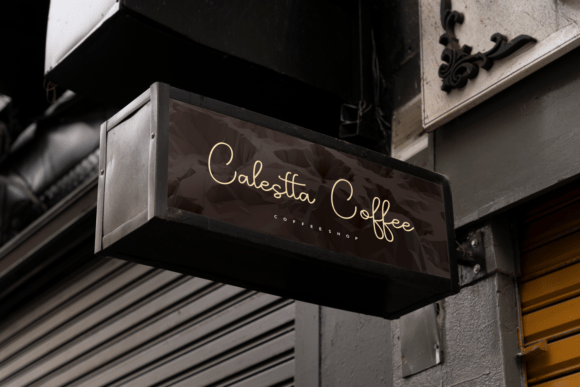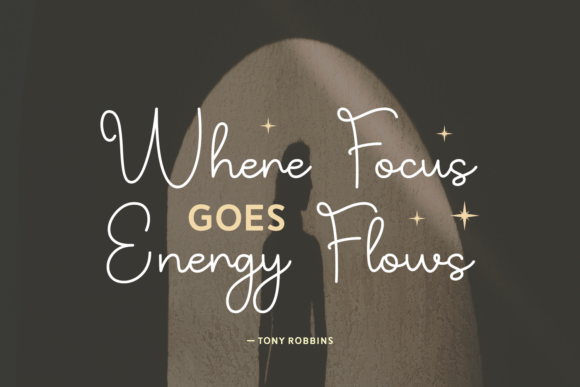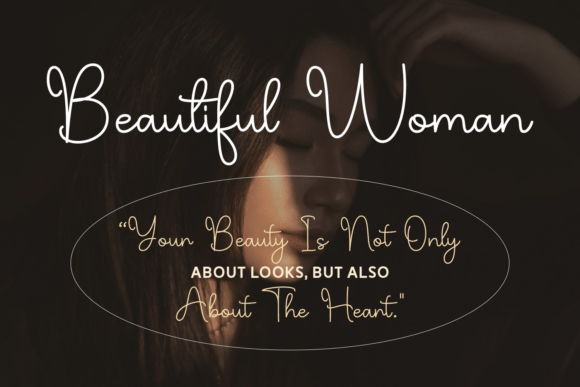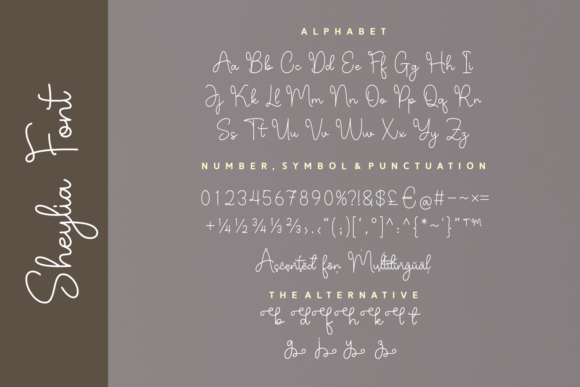
Introduction to Sheylia Font
As designers, we’ve all been there – staring at a blank canvas, searching for the perfect font to bring our creative project to life. For those who crave elegance and sophistication, one font stands out from the rest: Sheylia Font. This stylish script calligraphy font exudes refinement and artistry, making it the perfect choice for high-end branding, social media graphics, and beauty packaging.
With its soft loops, refined curves, and charming swashes, Sheylia Font captures attention while maintaining a graceful, feminine flow. Whether you’re working on a wedding invitation, a luxury product design, or a social media campaign, this font is sure to elevate your design and leave a lasting impression.
Key Features of Sheylia Font
• High-quality, elegant font perfect for creative projects requiring a touch of sophistication.
• Its unique, cursive design makes it perfect for adding a personal touch to invitations, wedding stationery, and other creative projects.
Honest Review: Sheylia Font
• Clean and modern aesthetic
Tips for Getting the Most Out of Sheylia Font
To get the most out of Sheylia Font, use it on a transparent background to create a clean and minimalist design. Experiment with different font sizes and styles to add visual interest to your project.
Sheylia Font is ideal for creating logos, business cards, and other design elements that require a high-quality, elegant font. It’s also great for creating digital products, such as ebooks and presentations, where a professional font is essential.